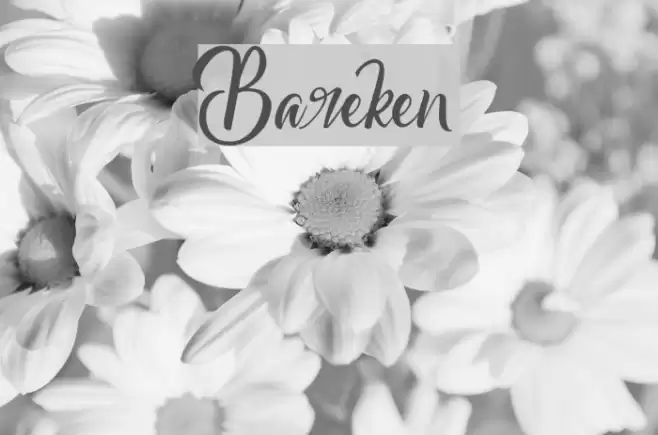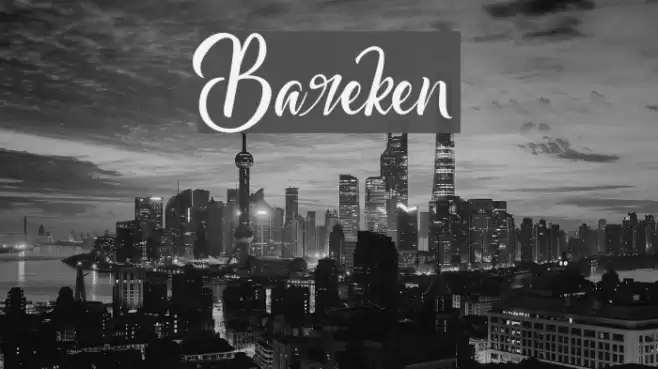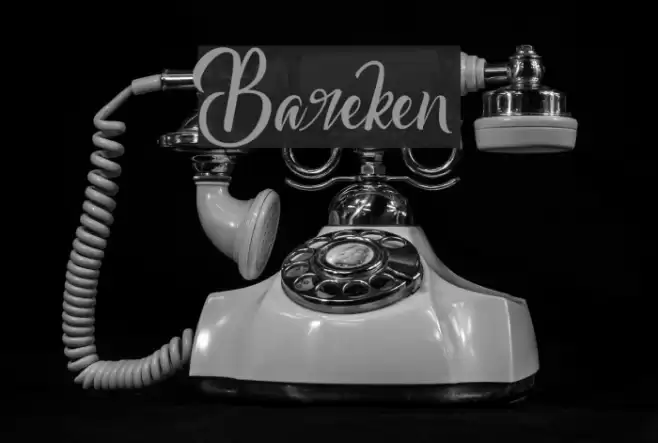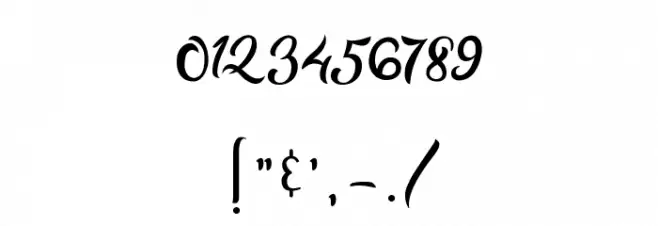
Bareken Font
Bareken Description
This font exudes a dynamic and elegant script style, characterized by its flowing and interconnected letterforms. The uppercase letters are bold and sweeping, with dramatic flourishes that give a sense of movement and grace. The lowercase letters maintain a consistent flow, with some characters featuring unique loops and curves that add to the font's charm. The numerals are distinct and maintain the script's fluidity, while the special characters are crafted to match the overall aesthetic. This font's artistic flair makes it suitable for creative and expressive design projects.
A dynamic and elegant script font with flowing, interconnected letterforms from Uncategorized fonts.